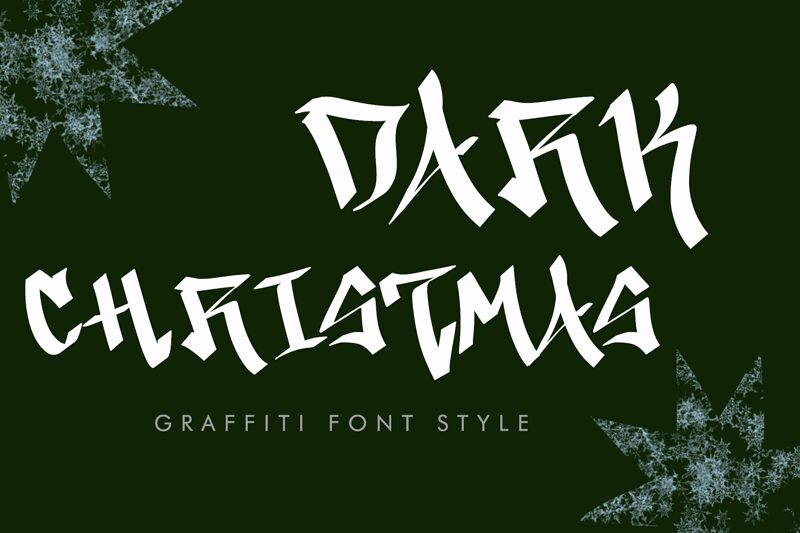
Dark Christmas font by Yoga Letter delights with its graffiti-inspired look. The free font was created to mimic decorative, exaggerated writing styles with a cursive natural flow that feels edgy and modern. Dynamic angles, sharp edges, and bold curves come together for an expressive font with a big personality.
Find a creative use for Dark Christmas in headlines, posters, album covers, book covers, film titles, logotypes, or website design. Use it for branding commercial projects or your personal artworks in both print and digital platforms. Typography is a form of artistic expression that can often make or break a design.